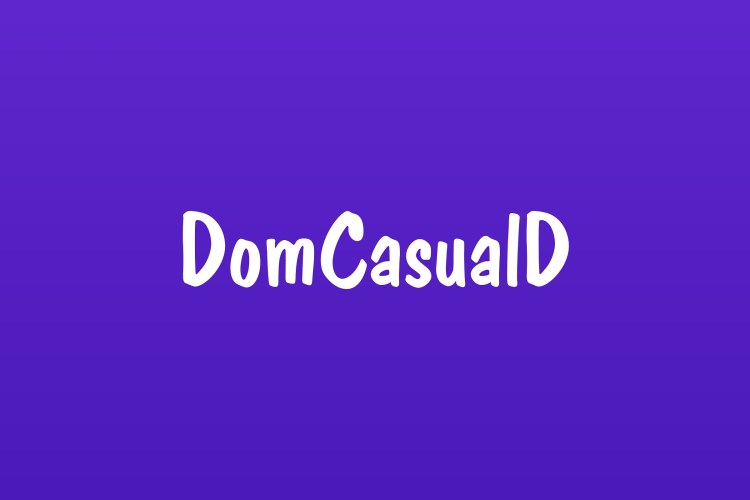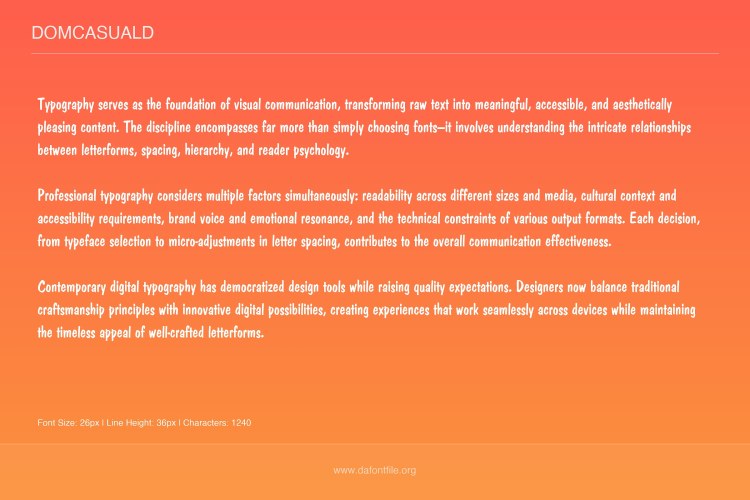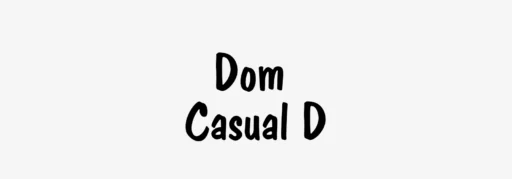
Dom Casual D Font Family
The Dom Casual D font is a casual handwritten-style typeface with a friendly and informal feel. Its smooth, flowing strokes give it a natural look, making it ideal for posters, signage, and playful branding. The relaxed style adds personality and warmth to designs. It works well when you want to create a fun, approachable, and human touch in your projects.
Dom Casual D Font Family is a Display Fonts font that brings a professional and versatile look to your projects. The Dom Casual D font is a casual handwritten-style typeface with a friendly and informal feel.